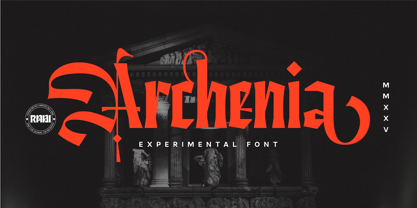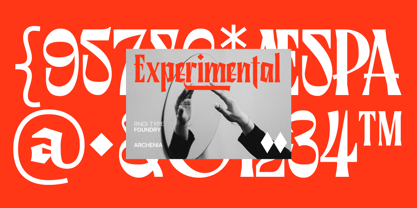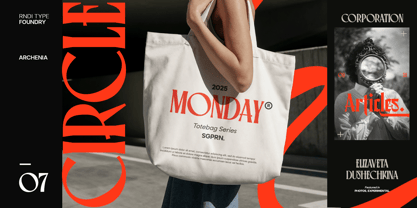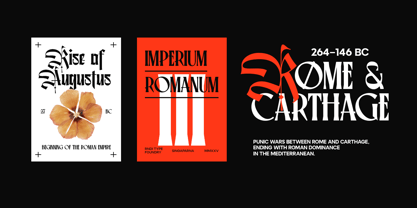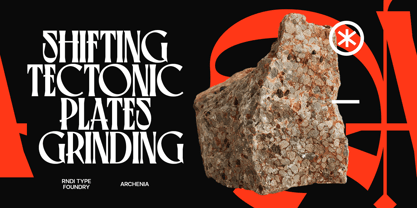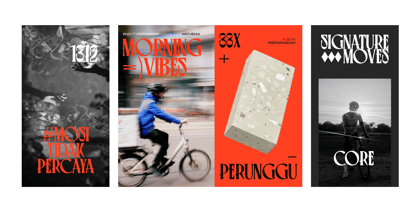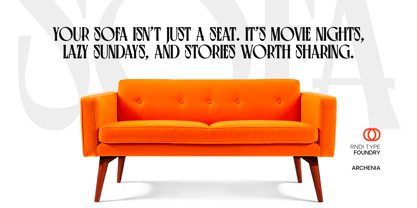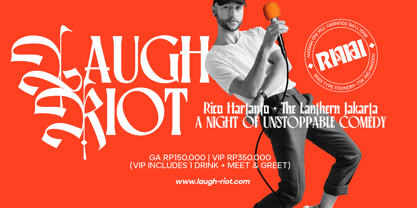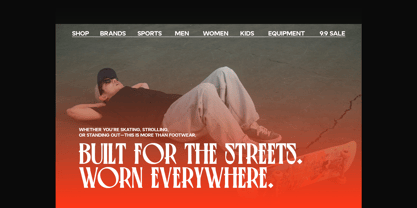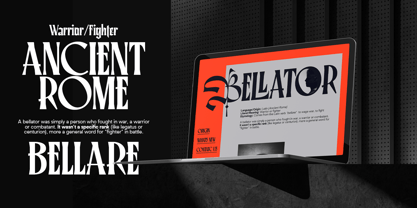
Archenia
by RNDI Type Foundry
The Archenia Font Family was designed by Randi Ilhamsyah and published by RNDI Type Foundry. Archenia contains 1 styles.
Archenia is an experimental display font that fuses gothic sharpness with Roman elegance. Defined by bold contrasts, angular details, and sweeping curves, it captures both power and artistry. Perfect for posters, logos, fashion branding, or editorial design, Archenia blends historical grandeur with a modern edge, creating a dramatic visual impact that stands out across contemporary creative projects.